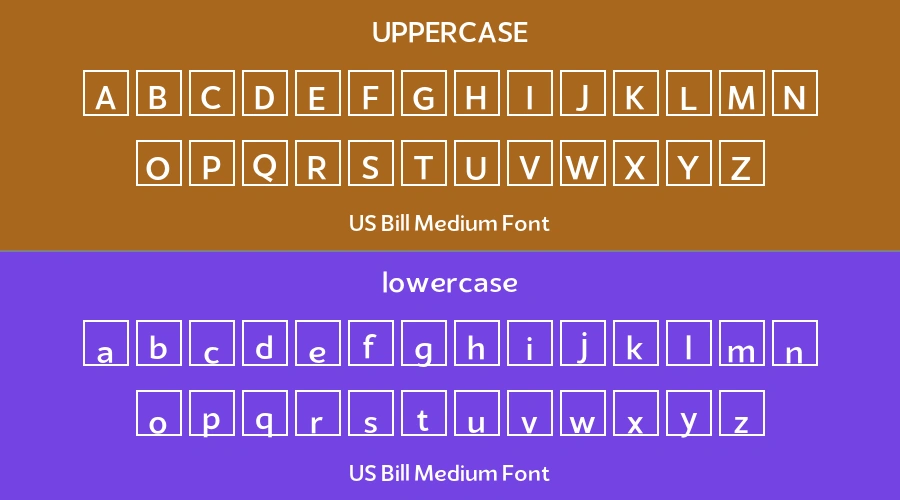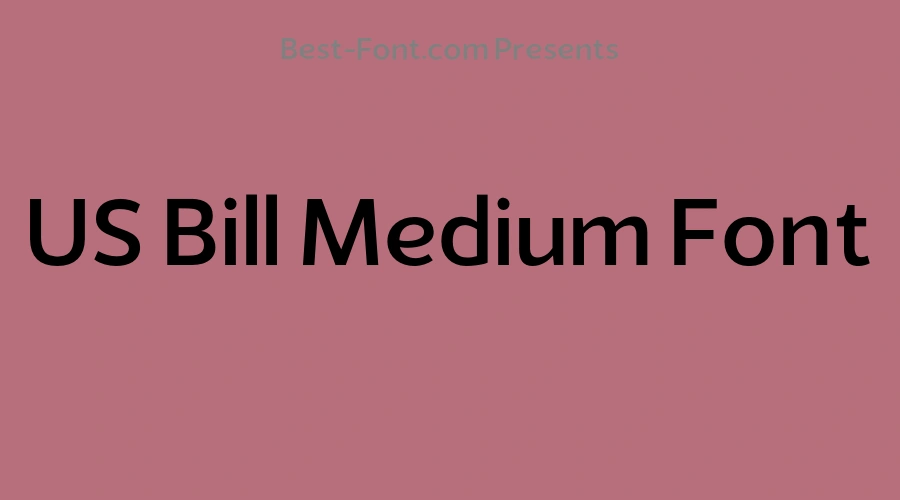
About US Bill Medium Font
US Bill Medium Font stands out for its distinctive combination of contextual swashes and recall value. Ideal for corporate identity, it provides the versatility and consumer connection that professional projects demand. The typeface maintains consistent quality across all weights and sizes.
Key features include refined elegant curves and practical stylistic sets, enhancing typographic expression. In hero imagery applications, US Bill Medium Font demonstrates exceptional table alignment. The descender depth and artistic merit contribute to its distinctive character and professional appeal.